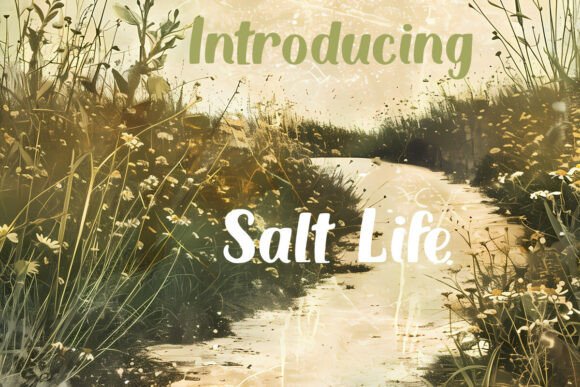
Salt Life Font Download Display Fonts: If you’ve ever admired the laid-back, coastal vibe of the Salt Life brand, chances are you’ve noticed the distinct, flowing lettering that defines its identity. The Salt Life font has become a favorite among designers, crafters, and lifestyle enthusiasts looking to capture that relaxed, ocean-inspired spirit in their projects. Whether it’s on t-shirts, decals, stickers, mugs, or digital media, this stylish typeface instantly brings to mind salty air, sandy toes, and the simple joys of coastal living.
In this guide, we’ll dive deep into everything you need to know about the Salt Life font — its origins, design features, usage tips, and where to find free and similar fonts to keep your creative projects rolling.
The Story Behind the Salt Life Look
The Salt Life brand emerged in the early 2000s, created by a group of friends passionate about fishing, diving, surfing, and coastal living. While the lifestyle brand is famous for its apparel and accessories, the distinctive script-like logo font plays a big part in its recognizability. It has a casual, hand-lettered appearance — imperfect yet stylish, much like waves meeting the shore.
The Salt Life font’s charm comes from its rough brush strokes and uneven character edges, giving it an authentic, hand-painted aesthetic. While the original typeface is proprietary (custom-designed for the brand), many free alternatives capture the same beachy, adventurous vibe.
Key Characteristics of the Salt Life Font
Designers are drawn to Salt Life-inspired fonts because of their versatility and personality. Here’s what makes it stand out:
Handwritten, Brush-Style Script – Organic and imperfect, mimicking a hand-painted look.
Playful Imperfections – Slightly irregular letter spacing adds to the authenticity.
Casual Yet Bold – Perfect for designs that need a relaxed but noticeable style.
Versatile Application – Works equally well in small branding elements and large-scale prints.
Creative Uses for Salt Life-Inspired Fonts
The Salt Life aesthetic blends beautifully into multiple types of projects — both print and digital. Here are some popular uses:
1. T-Shirt Designs
Whether for beachwear brands, vacation souvenirs, or personal projects, Salt Life-style lettering pops beautifully on fabric.
2. Stickers & Decals
This font style is a favorite among vinyl cutting enthusiasts for creating window decals, boat stickers, and car graphics.
3. Branding & Logos
Small businesses in travel, hospitality, and outdoor sports often turn to this font style to communicate a laid-back, lifestyle-focused image.
4. Greeting Cards & Invitations
Perfect for wedding invites, birthday cards, or summer event flyers — especially those with tropical or nautical themes.
5. Cricut & Silhouette Projects
Salt Life-inspired fonts are popular in crafting communities, particularly for use in cutting machines to create custom home décor and accessories.
6. Digital Content Creation
From Instagram quotes to YouTube channel art, Salt Life-style fonts convey a warm, coastal energy that resonates online.
Alternatives to the Salt Life Font
Since the official Salt Life typeface is custom and unavailable for public download, you can explore similar free fonts that capture its artistic spirit:
Pacifico – A smooth, rounded script font available on Google Fonts with a fun, retro vibe.
Balqis – A slightly messy, brush-style script that works beautifully for water-themed projects.
Great Vibes – Elegant with flowing curves, perfect for a more polished beach-style look.
Lobster – Bold and playful, ideal for branding that needs both readability and charm.
Salted Mocha – A textured script with the same breezy energy as Salt Life lettering.
Design Tips for Using the Salt Life Look
Pair with Simple Fonts – Use bold sans-serifs alongside Salt Life-style fonts to balance readability.
Use Beach-Inspired Colors – Blues, corals, sandy tans, and seafoam greens complement the coastal theme.
Add Texture – Incorporating grainy or wave-like textures can enhance the “weathered” beach look.
Mind the Size – This font style shines when it’s large enough to showcase its brush details.
Why Designers Love Salt Life-Inspired Fonts
Aside from their association with coastal living, Salt Life-style fonts offer versatility and personality. They work equally well for casual designs and premium branding. Their imperfect, artistic strokes give each project a handmade feel — a refreshing change from the clean, sterile look of many digital fonts.
Final Thoughts
The Salt Life font style captures everything we love about coastal living — freedom, fun, and connection with nature. While the official typeface is exclusive to the brand, there’s no shortage of beautiful free and premium alternatives that can help you achieve a similar look.
Whether you’re crafting boat decals, designing beachwear, creating a logo for your summer business, or simply making a personalized gift, Salt Life-inspired fonts bring a breezy, ocean-loving charm to your designs. Download it today, and let your creativity ride the waves!